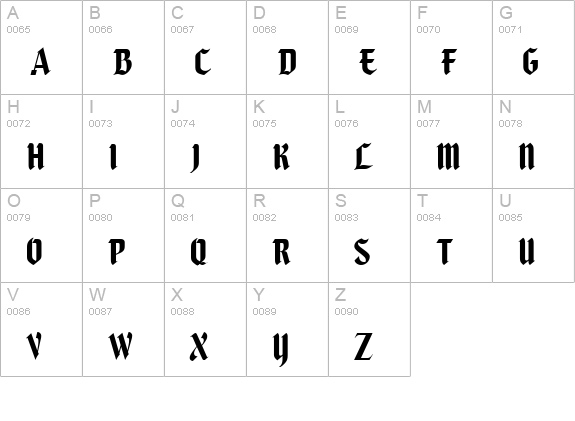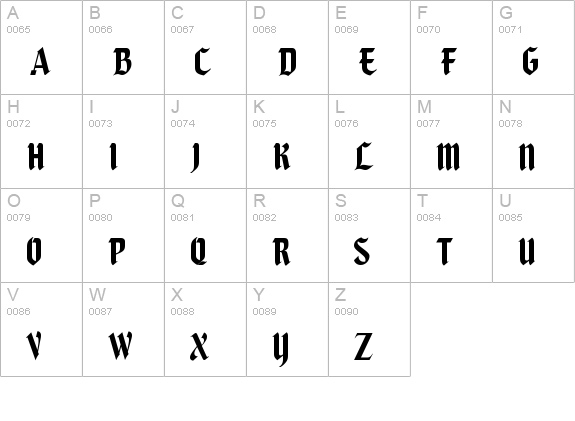
Caligra MN Font Details
Caligra MN is a sophisticated and elegant font that exudes a sense of timeless beauty and refined craftsmanship. Its fluid strokes and graceful curves make it the perfect choice for projects requiring a touch of sophistication and class. Whether used for invitations, branding, or editorial design, Caligra MN adds a touch of elegance to any project. The font is available for free download at FontsMarket.com, making it easily accessible to designers and creatives looking to elevate their work with a touch of luxury. With its versatility and charm, Caligra MN is sure to become a favorite among those seeking a font that effortlessly combines style and sophistication.